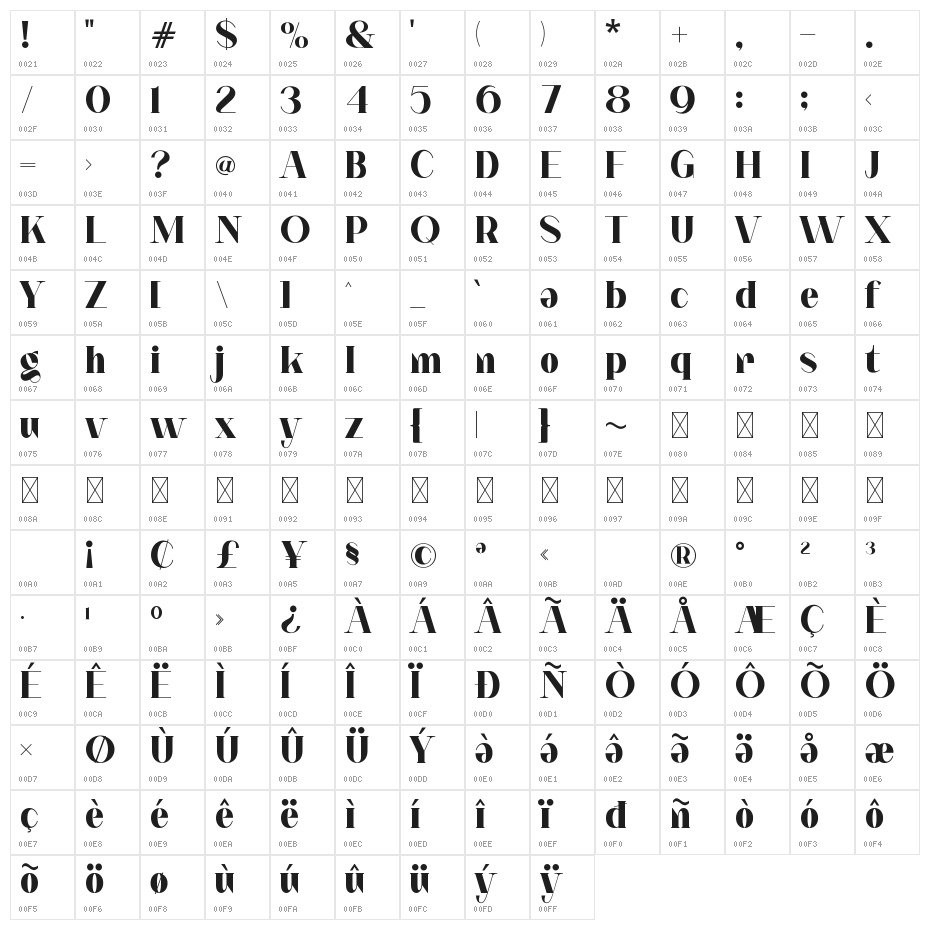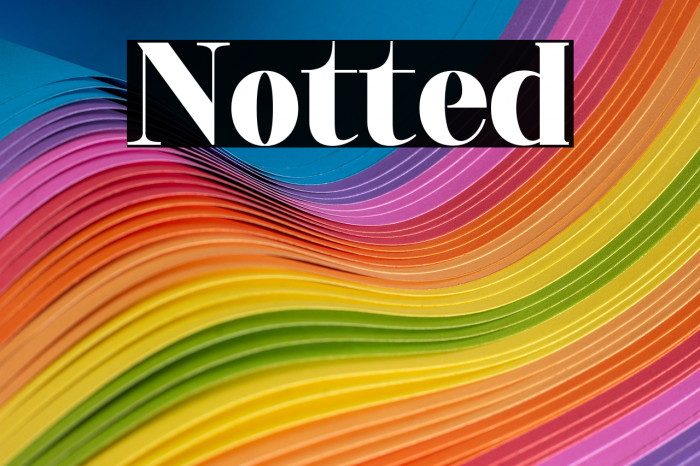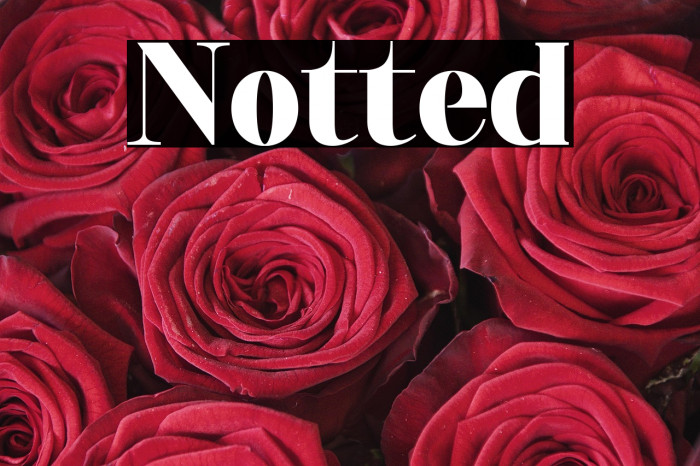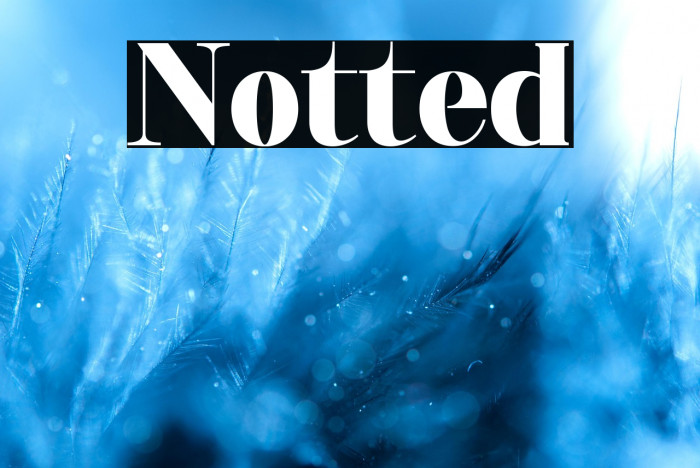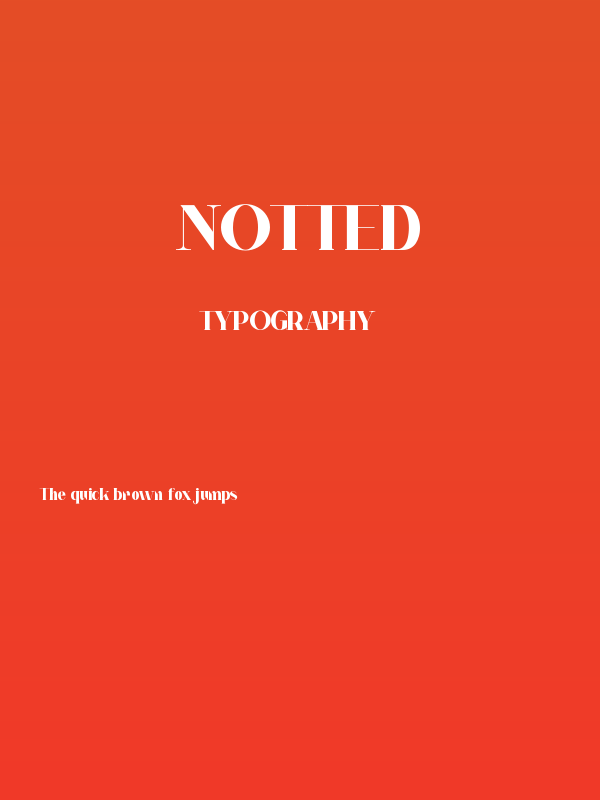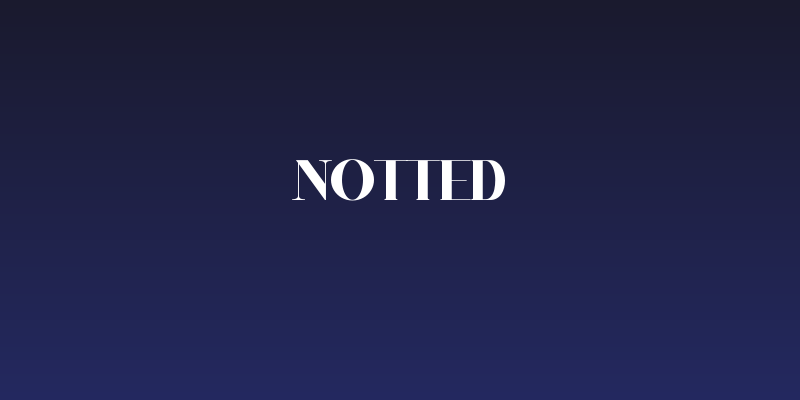
Notted Font
Notted Description
This font features a striking contrast between thick and thin strokes, creating a dramatic and elegant appearance. The uppercase letters are bold and commanding, while the lowercase letters maintain a playful yet sophisticated style. The numerals are distinct and easily readable, with a modern flair. Special characters are designed with a unique touch, adding to the font's overall aesthetic. The combination of sharp angles and smooth curves gives it a dynamic and versatile look, suitable for various design applications.
| Proposed Projects | Ideal for branding, editorial design, fashion magazines, and luxury product packaging. |